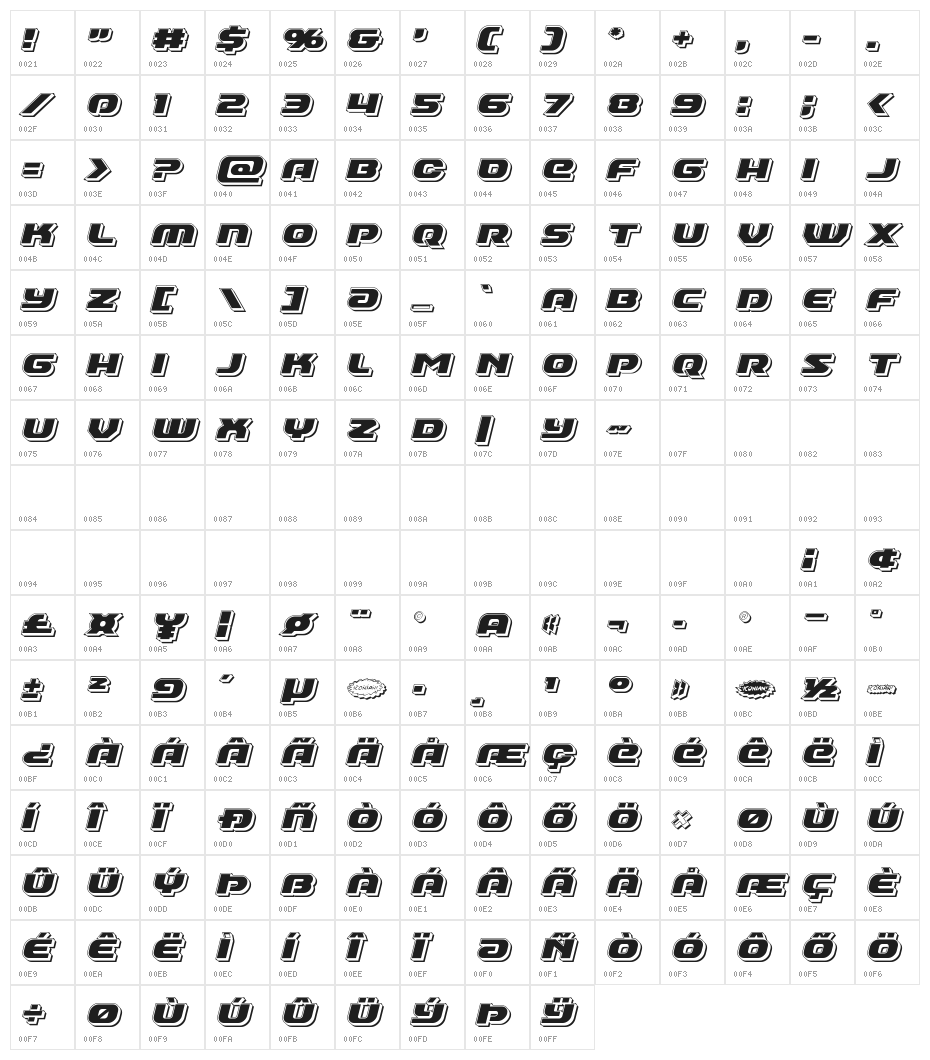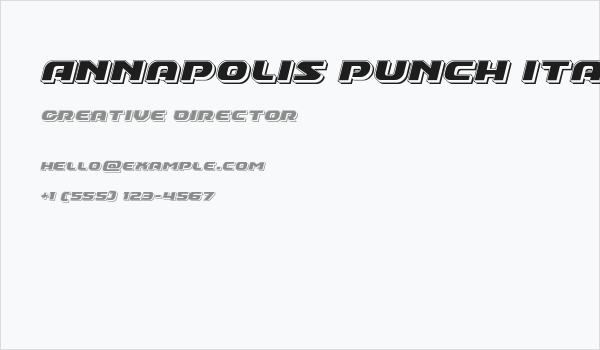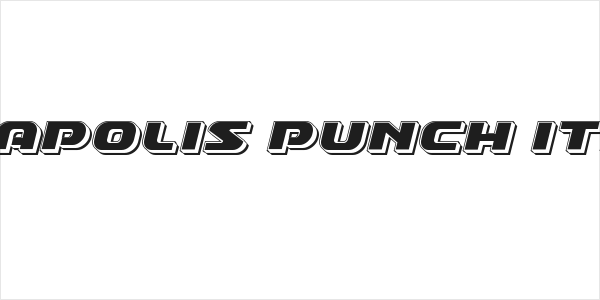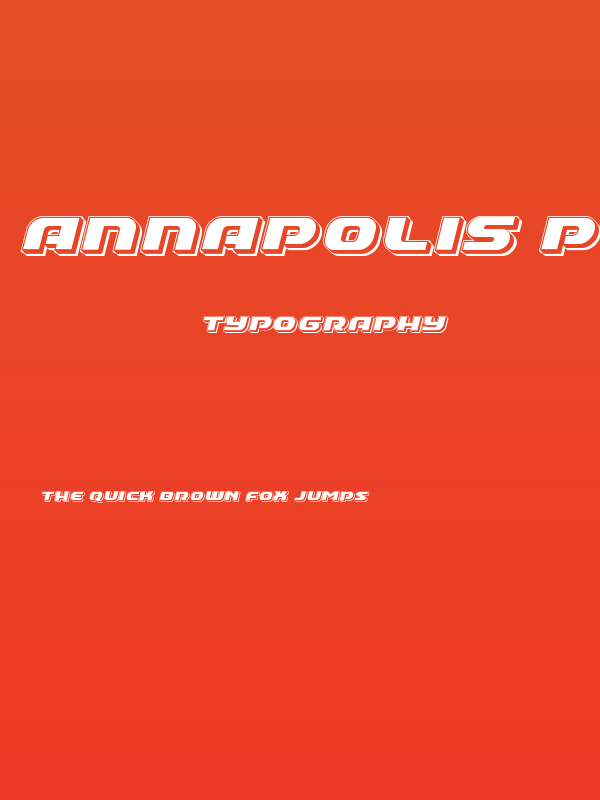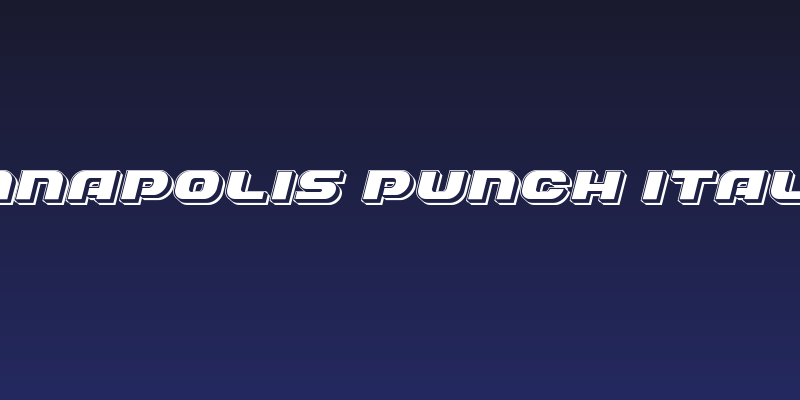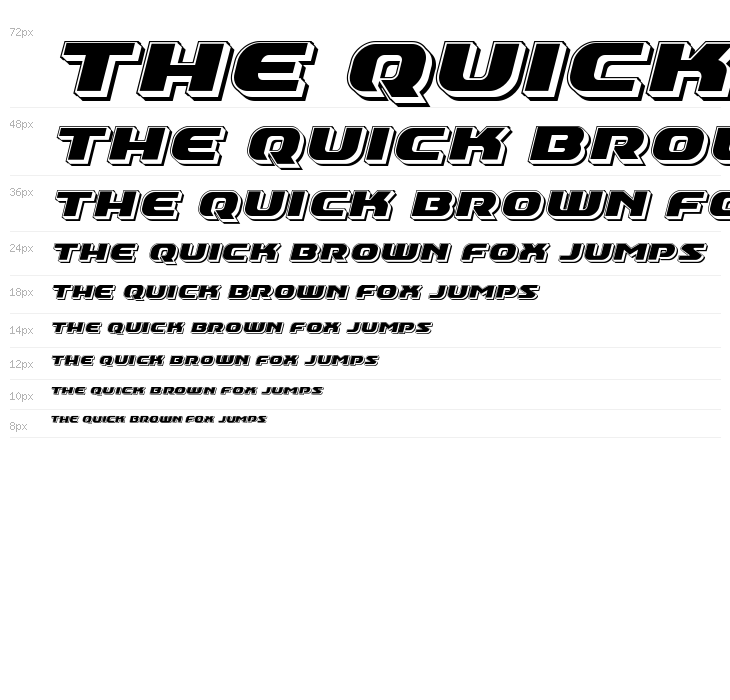
Annapolis Punch Italic Font
Annapolis Punch Italic Description
This font features a bold, dynamic style with a strong presence. The characters are outlined, creating a striking three-dimensional effect that makes each letter stand out. The italic slant adds a sense of motion and energy, making it ideal for attention-grabbing designs. The uppercase and lowercase letters maintain a consistent style, with rounded edges and a modern flair. The numerals and special characters are equally bold and impactful, ensuring uniformity across all text elements.